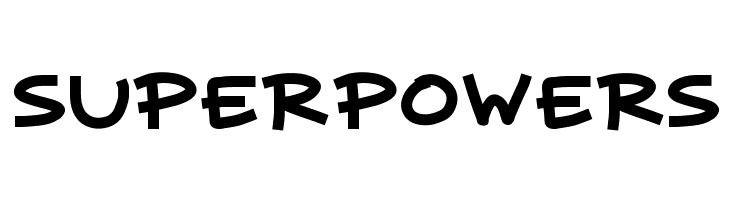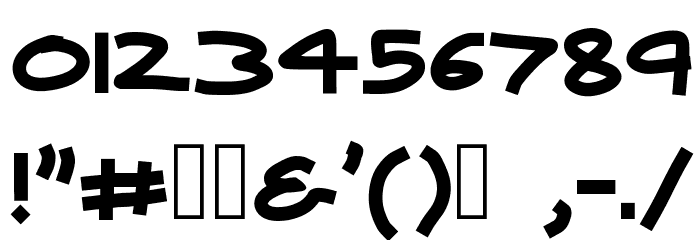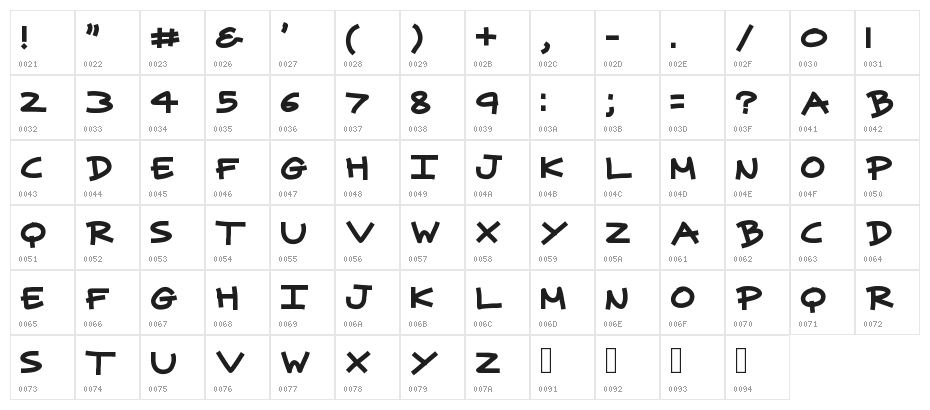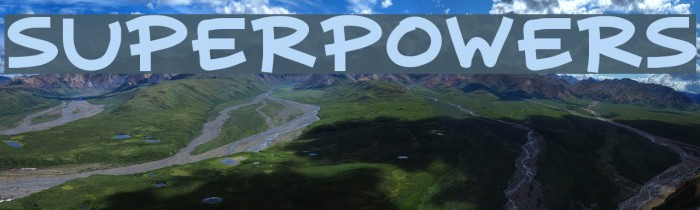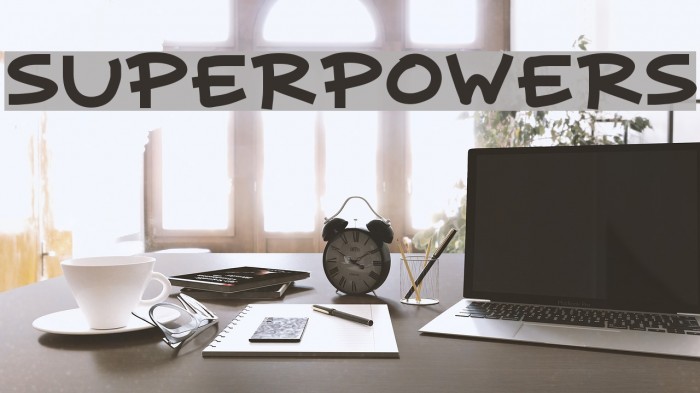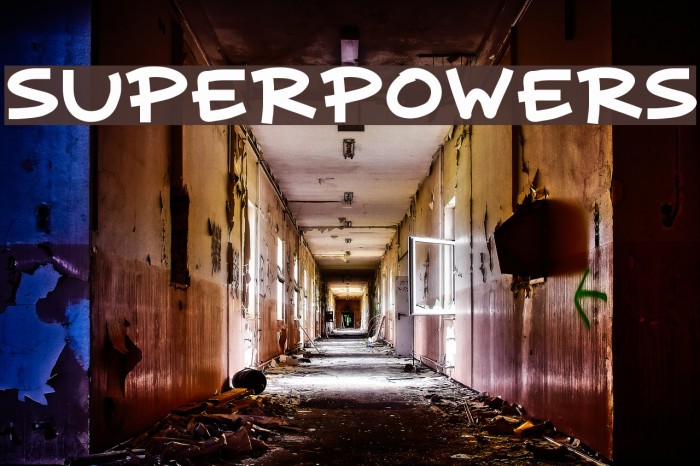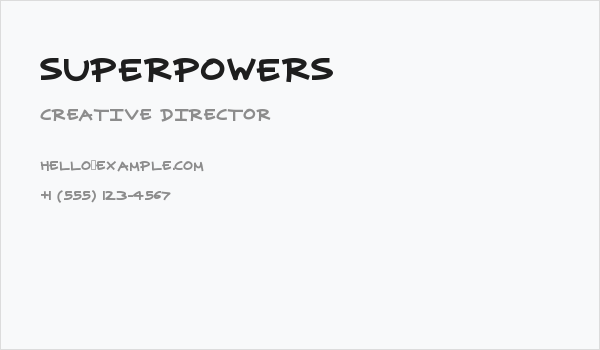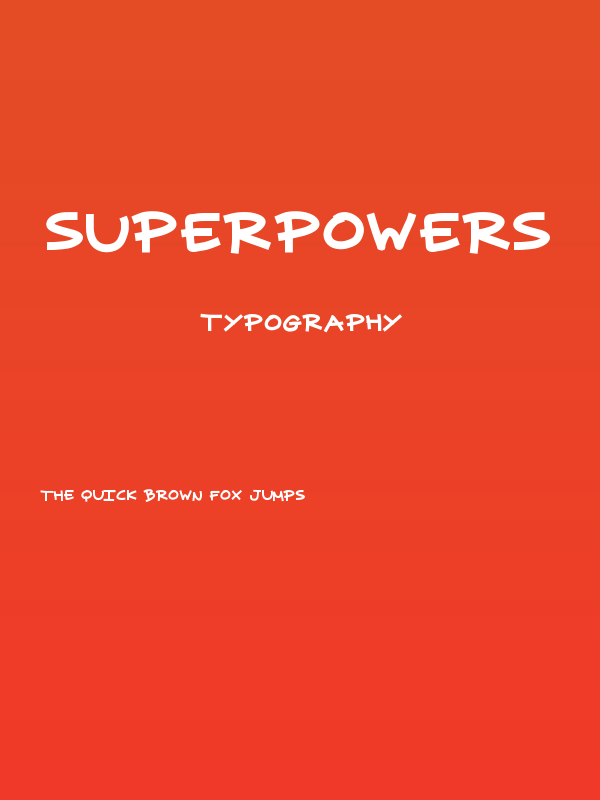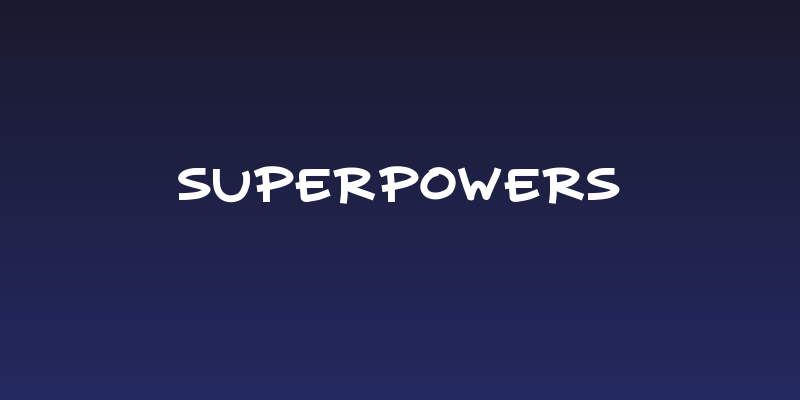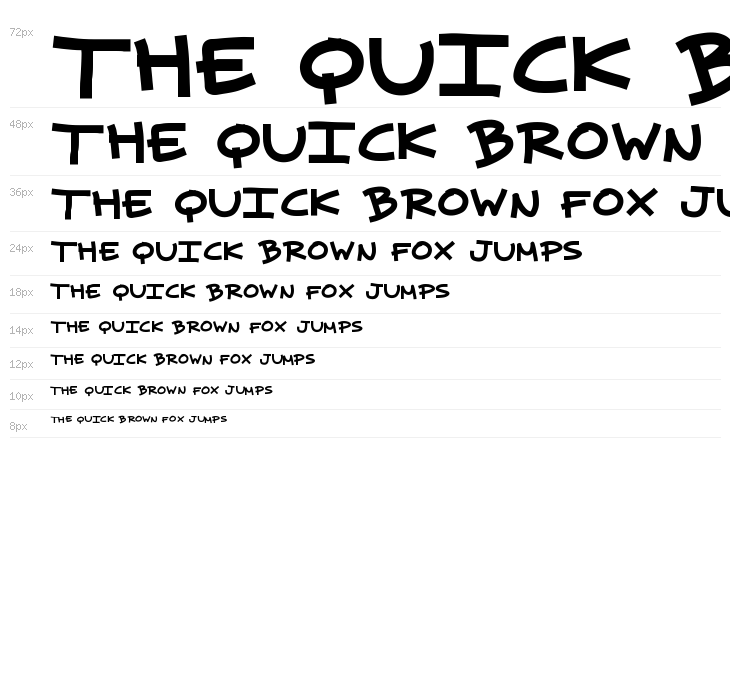
superpowers Font
superpowers Description
This font features a playful and energetic style, characterized by its bold and slightly irregular letterforms. The strokes are thick and consistent, giving it a strong presence on the page. The letters have a hand-drawn appearance, with a slight tilt and varying angles that add to its dynamic feel. The overall design is informal and fun, making it suitable for creative projects that require a lively and engaging typeface. The numbers and special characters maintain the same whimsical style, ensuring consistency across all text elements.
| Overall Style | Playful, Energetic, Informal |
| Proposed Projects | Ideal for comic books, children's books, playful branding, and posters. |